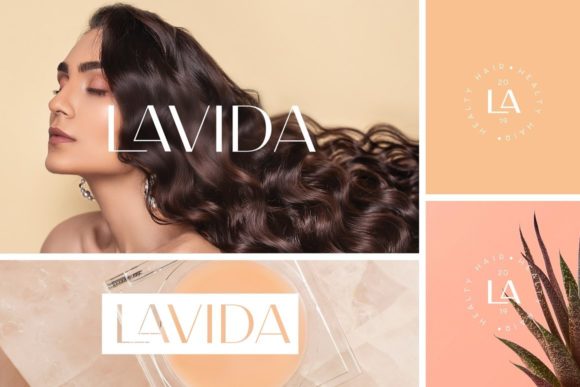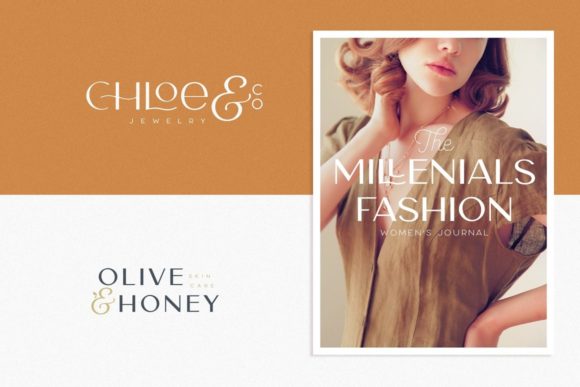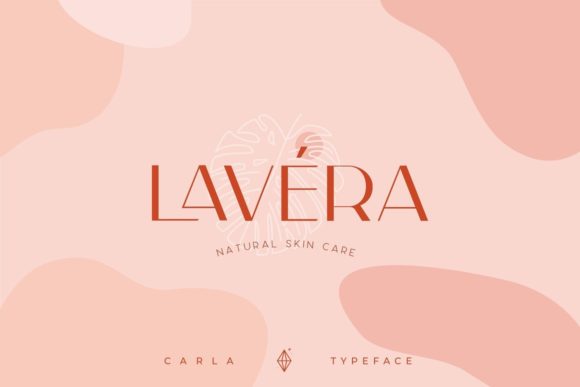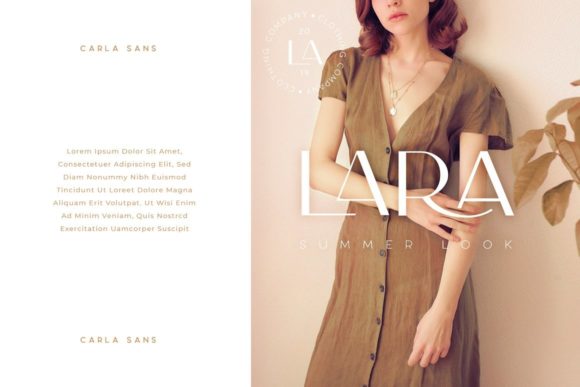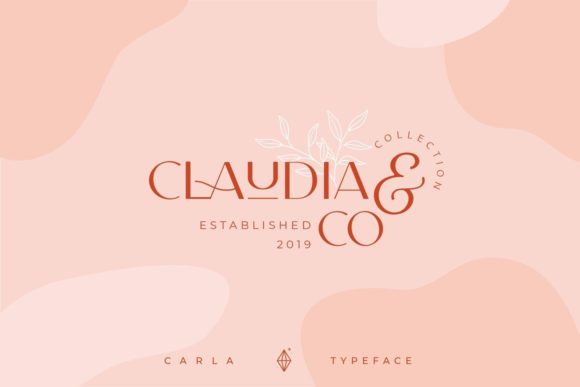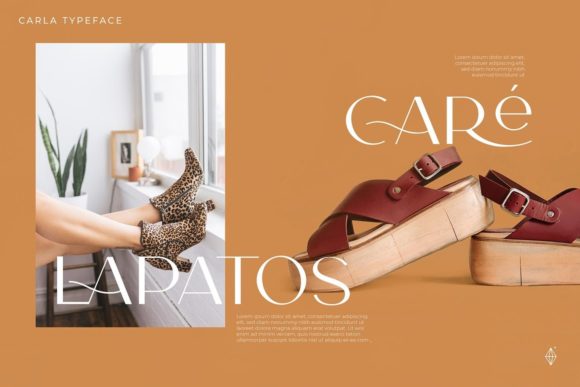
Discovering the Perfect Canvas: Carla Font
There’s something magical about the moment when a project comes together, and every element falls into place. The colors, the textures, the typography – it’s all so beautifully harmonious. For designers, this moment is what makes all the hard work worth it. But have you ever stopped to think about the fonts that bring your vision to life? That’s where Carla Font comes in – a stunning, elegant sans serif font that’s sure to elevate your designs to the next level.
Carla Font is more than just a pretty face; it’s a carefully crafted tool designed to help you express yourself with precision and flair. With its PUA encoding, you’ll have access to a world of glyphs and swashes, giving you the freedom to create unique and captivating designs. Whether you’re a seasoned pro or just starting out, Carla Font is an invaluable asset that’s sure to become your go-to companion for all your design projects.
Carla Font Key Features
- Font Family: A sans-serif typeface designed for modern and clean typography.
- Character Count: The font family includes over 500 characters, including Latin, Greek, Cyrillic, and extended characters for multilingual support.
- Unique Characteristics: Carla Font features a distinctive geometric shape, with clean lines and rounded edges, giving it a modern and approachable feel.
Carla Font Review
Overall, I found the Carla Font to be a solid choice for typography needs. Here’s a breakdown of what I think works well:
- ✨ The font’s modern and sleek design makes it perfect for contemporary branding and design projects.
- ✨ Carla Font offers a wide range of weights and styles, providing flexibility for various design applications.
- ✨ The font’s high-quality rendering ensures crisp and clear typography, even at smaller font sizes.
- ⚠️ The font’s x-height can sometimes appear a bit inconsistent, affecting the overall legibility, especially in longer blocks of text.
- ⚠️ Some of the lighter weights may not be suitable for body text due to their delicate nature.
Overall, I’d say the Carla Font is a great choice for designers looking for a modern and sophisticated typeface. While it has its limitations, the font’s strengths make it a valuable addition to any design arsenal. With some careful selection of weights and styles, you can create stunning typography that elevates your designs.
Carla Font is a versatile font that can be used for a variety of design projects. Here are some tips for getting the most out of it:
- Use Carla Font for titles, headings, and other emphasis elements to create a professional and polished look.
- Experiment with different font sizes and colors to create visual interest and hierarchy.
- Combine Carla Font with other fonts and design elements to create a unique and cohesive design.
Common Use Cases for Carla Font
Carla Font is commonly used in:
- Business and corporate designs, such as